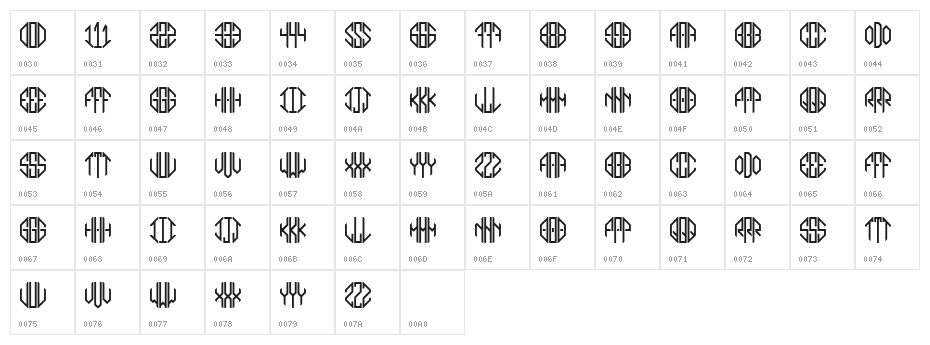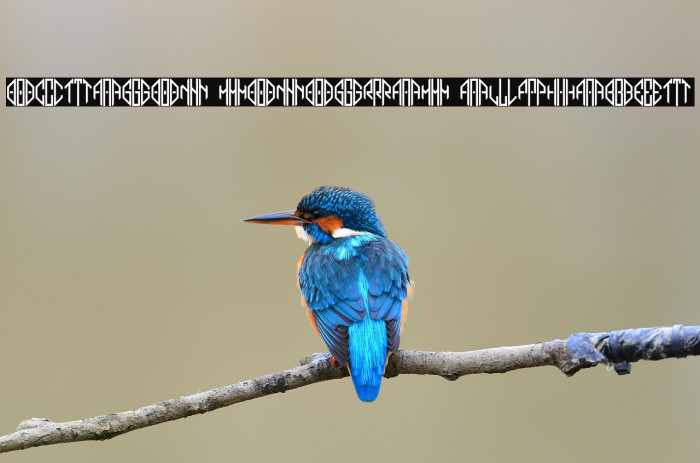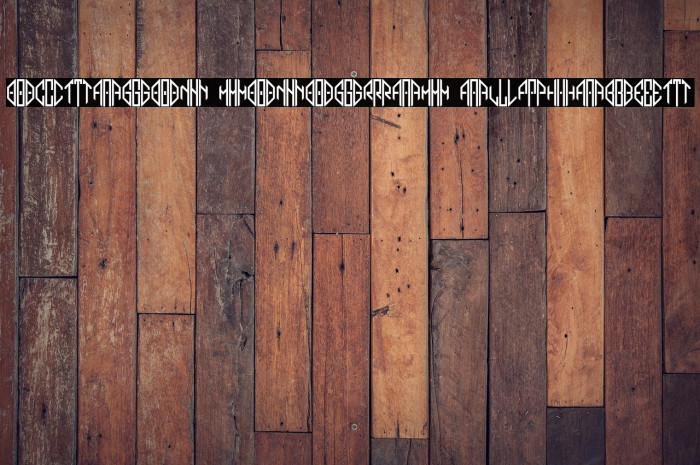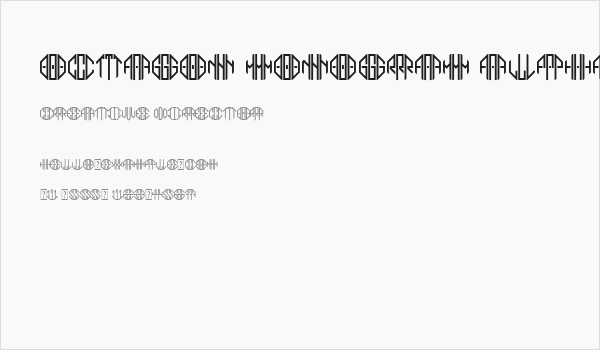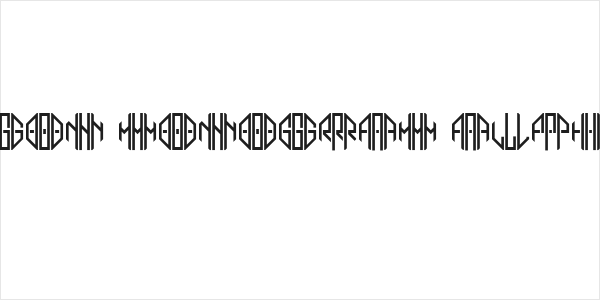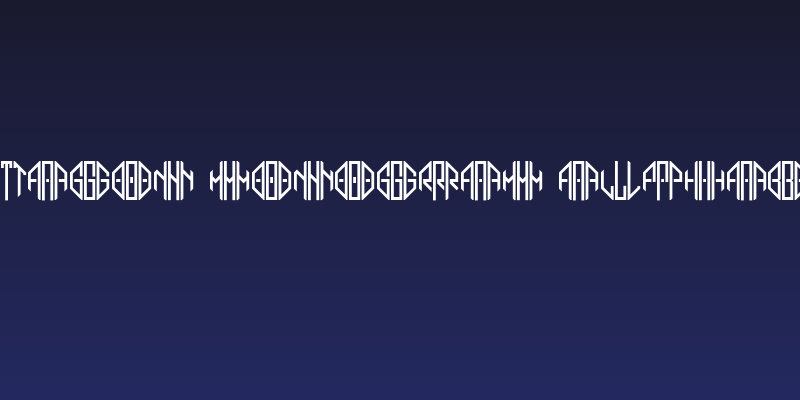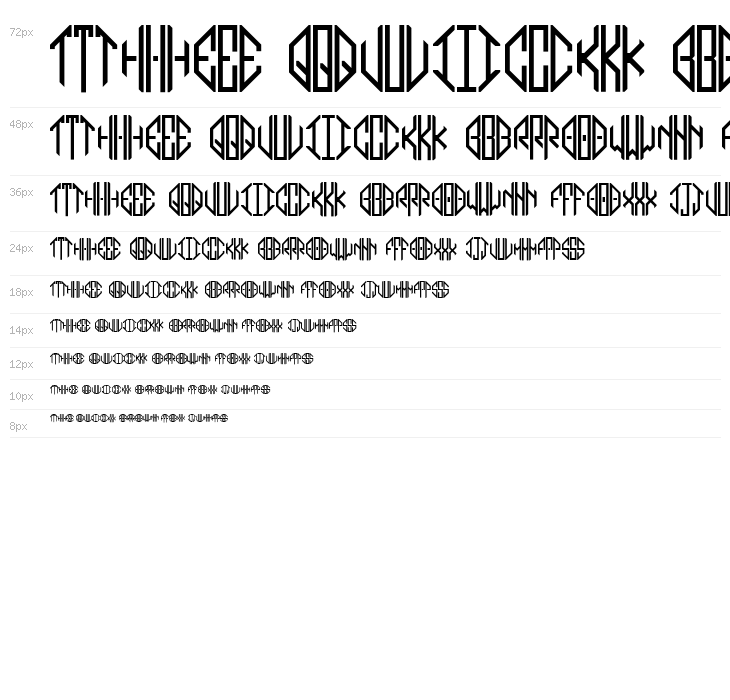
Octagon Monogram Alphabet Font
Octagon Monogram Alphabet Description
This font features a unique octagonal design that gives each character a monogram-like appearance. The geometric structure is consistent across all letters and numbers, creating a cohesive and visually striking look. The bold lines and angular shapes make it stand out, while the uniformity of the octagonal form ensures readability. This font is ideal for projects that require a modern and edgy aesthetic, with a touch of sophistication. Its distinct style makes it suitable for branding, logos, and decorative purposes.
| Use Case | Logos, Decorative elements |
| Proposed Projects | Ideal for branding, logos, decorative elements, and modern design projects. |